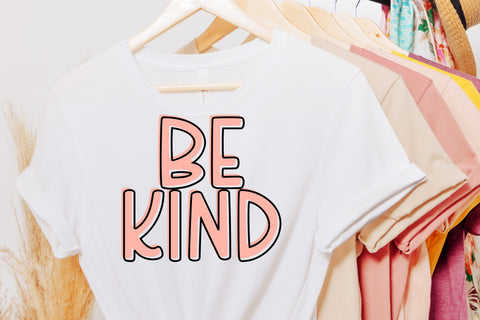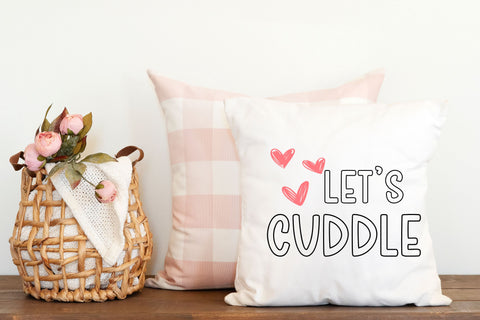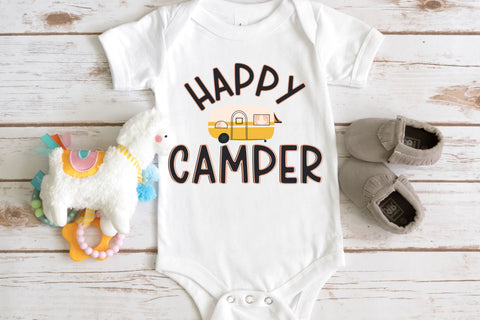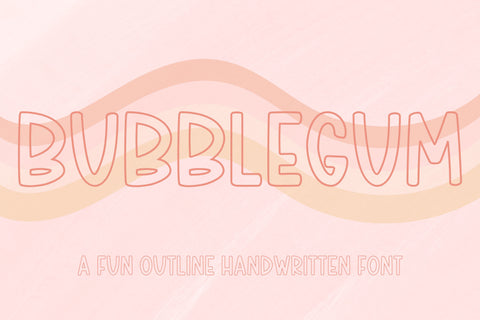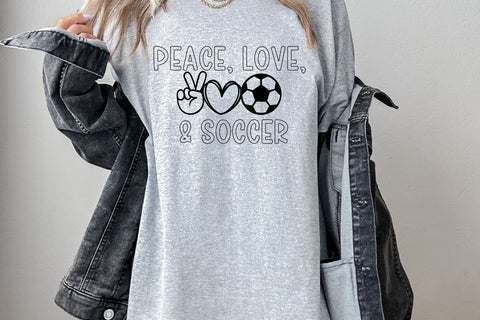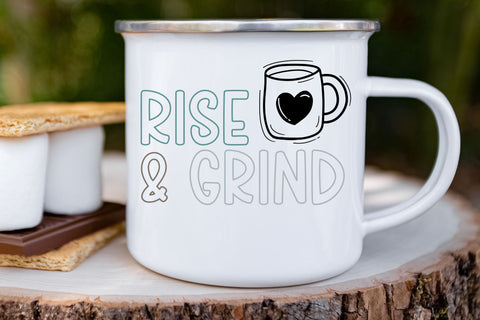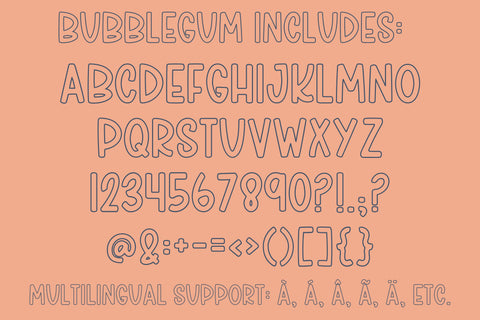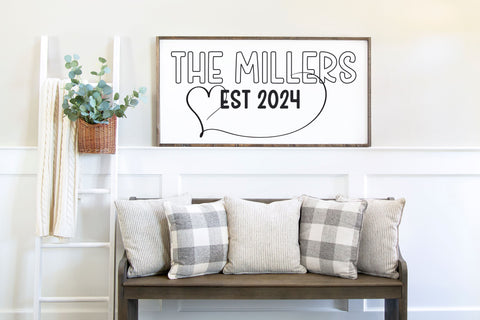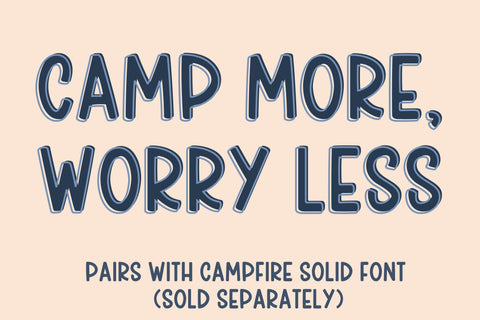
BubbleGum Handwritten Outline Font
Introducing Bubblegum, an outline Handwritten Font for Cricut - a charming and cute addition to your creative projects! This unique font is perfect for all your Cricut designs, making it a must-have for craft enthusiasts. With its playful and fun handwriting style, it adds a touch of whimsy and personality to any project. Whether you're crafting cards, scrapbooking, or designing SVG files, this font will bring your creations to life. Pair it with our Bold Campfire font for a fun outlined look!